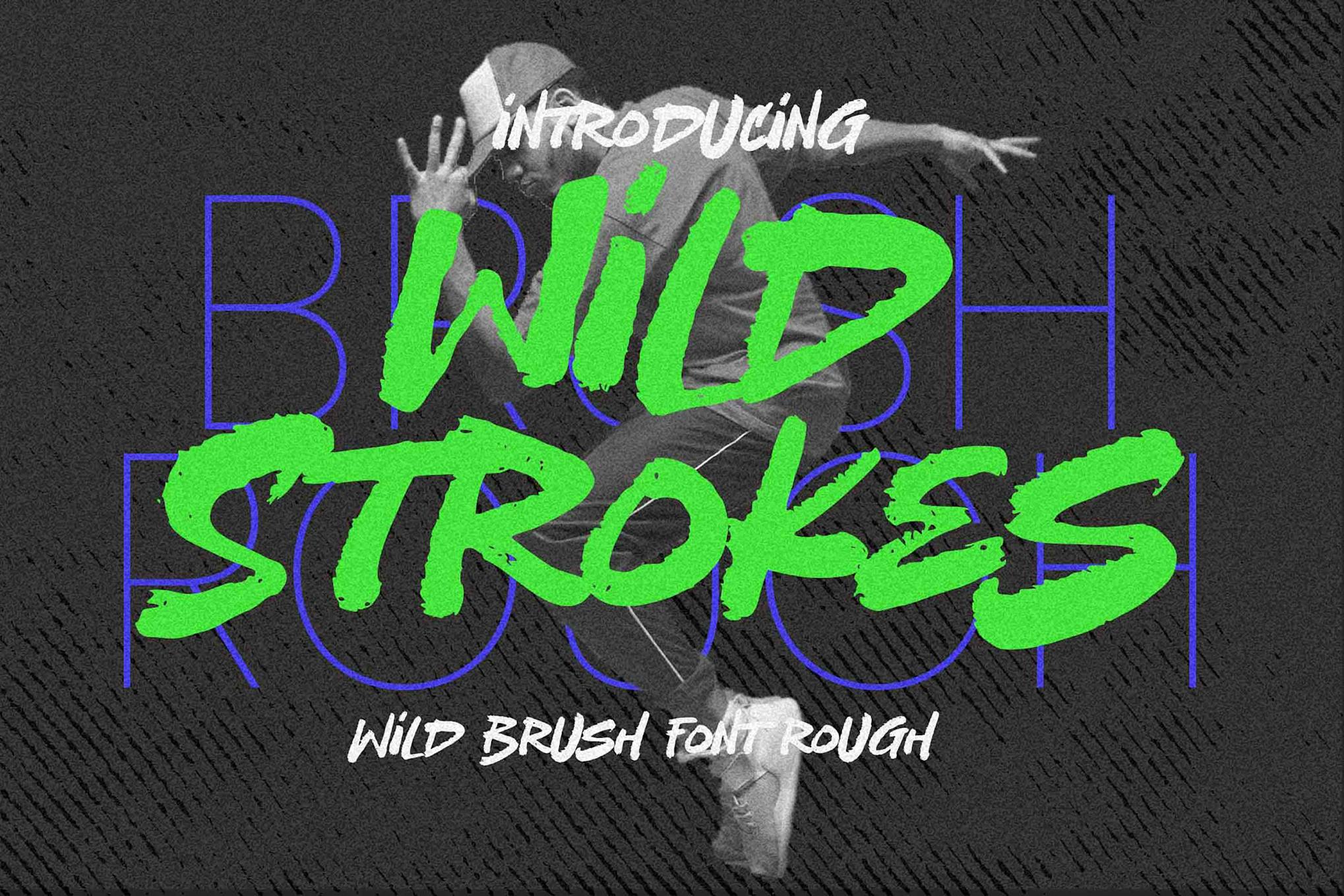
Wild Strokes - Wild Brush Font Rough
The Wild Strokes - Wild Brush Font Rough is perfect for outdoor adventure branding, extreme sports merchandise, rugged camping gear packaging, wilderness expedition logos, action sports posters, bold graffiti-style designs, energetic fitness branding, wild music festival graphics, adventurous travel campaigns, and untamed lifestyle products.
What makes the Wild Strokes - Wild Brush Font Rough so exciting is its explosive combination of raw brush energy with untamed artistic expression that captures the essence of wild creativity and unbridled passion. This dynamic typeface features aggressive brush strokes, organic texture variations, and fierce character movement that perfectly embodies the spirit of adventure and artistic freedom. The font's wild personality and rough authenticity make it an exceptional choice for brands seeking to communicate boldness, adventure, and genuine creative rebellion with powerful visual impact.
The Wild Strokes - Wild Brush Font Rough family includes multiple texture variations and wild alternates, featuring different roughness levels, chaotic stroke patterns, and untamed character options. Each variation maintains the signature wild brush appeal while offering different degrees of artistic chaos and visual intensity, giving designers extensive creative possibilities for crafting bold expressions and adventurous brand personalities.
The fierce brush characteristics of Wild Strokes - Wild Brush Font Rough showcase masterful wild typography design, with each letter featuring natural paint chaos and organic stroke turbulence that enhance its untamed appeal. The font's comprehensive character set includes uppercase and lowercase letters, numerals, punctuation marks, and wild symbols, ensuring complete functionality for diverse adventure projects and international applications.
Specifically designed for both digital and print adventure applications, this remarkable font maintains its wild brush texture and rough authenticity across all sizes and formats. From large-scale outdoor signage to detailed adventure merchandise, Wild Strokes - Wild Brush Font Rough adapts powerfully to any creative challenge while preserving its distinctive chaotic character and wild artistic spirit.